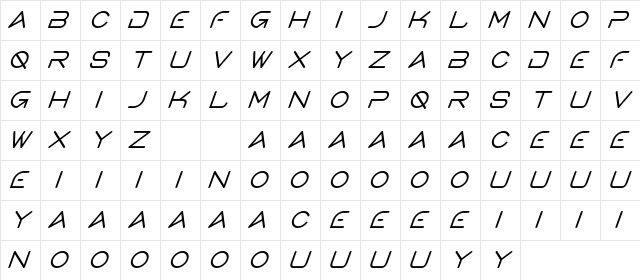
Gerth Demo is a composed and adaptable typeface that performs quietly and consistently across a wide range of design contexts. The slanted form adds forward momentum and visual energy.
Pro Tip: Use Gerth Demo for emphasis, pull quotes, and subheadings where its slanted energy can add rhythm to the layout.